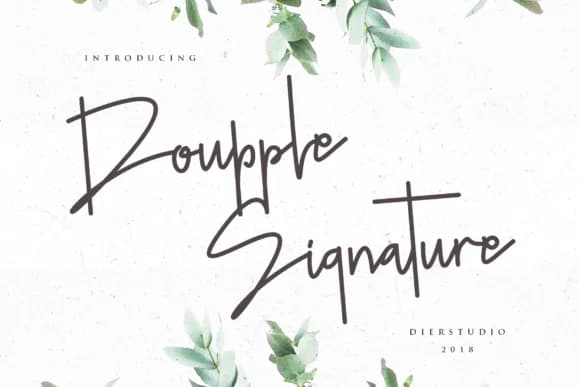
Doupple Font by Dierstudio is a flowing signature script that captures the understated elegance of hand-penned lettering. This typeface channels genuine authenticity through its graceful curves and personal character, making it the kind of choice designers reach for when a project needs a human touch rather than a polished commercial feel.
Wedding invitation suites are where this font truly shines, especially when paired with quality cardstock and traditional design sensibilities. Equally comfortable adorning boutique beauty brand packaging, personalized stationery, and artisan craft labels, Doupple brings that coveted handwritten quality without sacrificing readability across sizes. The natural flow of the letterforms makes it work just as well for greeting cards and event programs as it does for Etsy shop branding or small-batch product launches. Small businesses and makers appreciate how versatile it proves across both print and digital contexts, from social media headers to physical packaging.
What sets this script apart is its ability to feel authored rather than designed, which is precisely what makes it valuable to brands building a more intimate connection with their audience. Whether the project is a stationery set, a cosmetics label, or a custom social post, Doupple carries that essential quality of handwritten sincerity. You'll find yourself returning to this typeface whenever a design calls for warmth over polish. Get Doupple Font on Creative Fabrica and add this reliable signature script to your collection.
Doupple Font is a script font that shines as a display or heading face. Pair it with a clean sans-serif or serif font for body text β the contrast creates a clear hierarchy while the two styles stay balanced and easy to read.